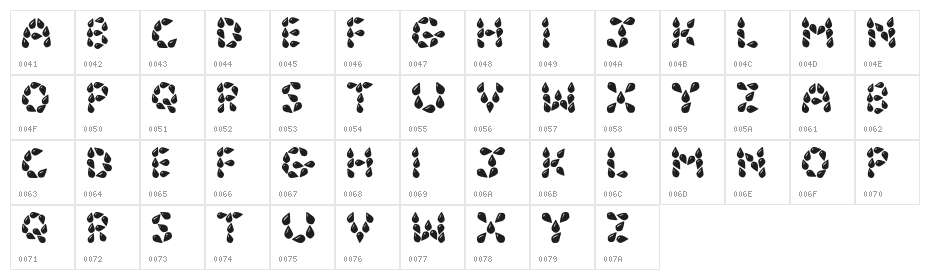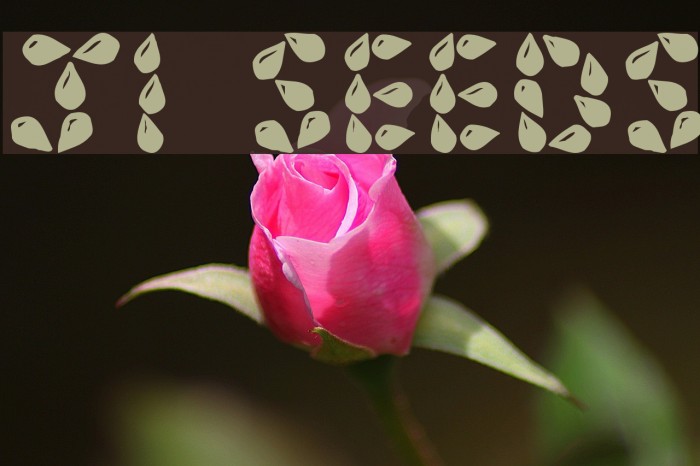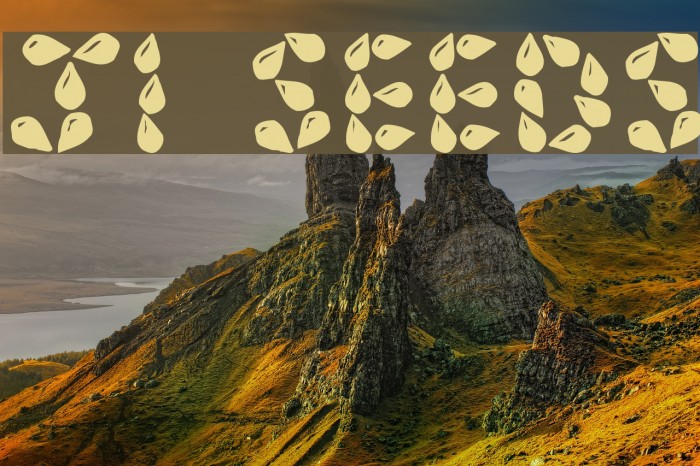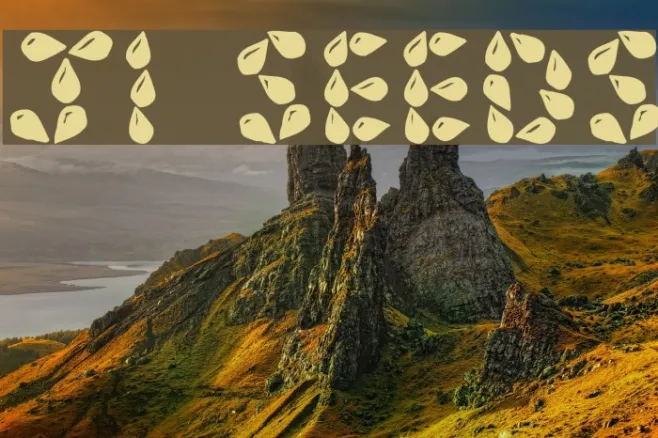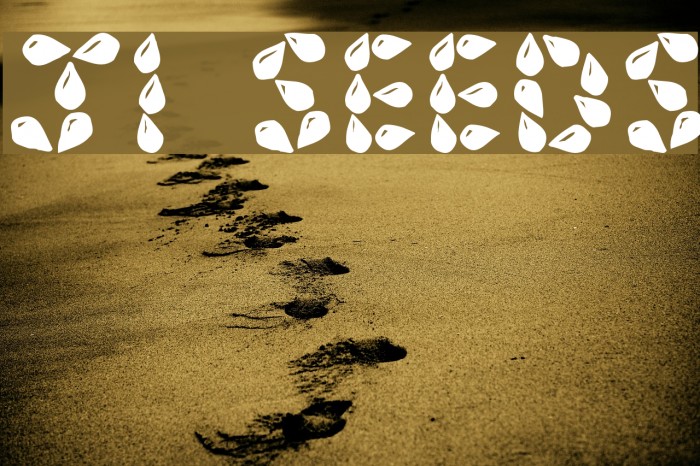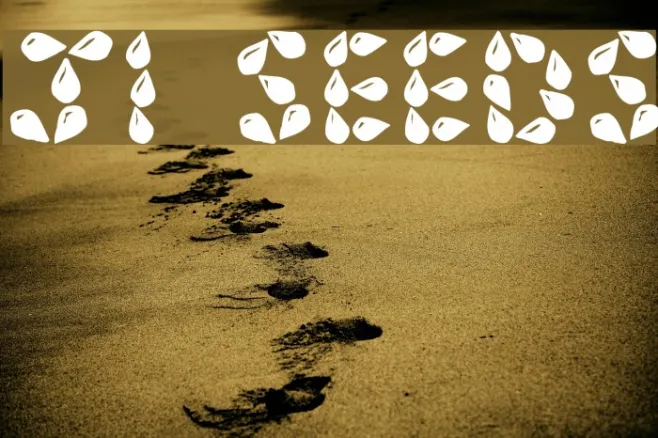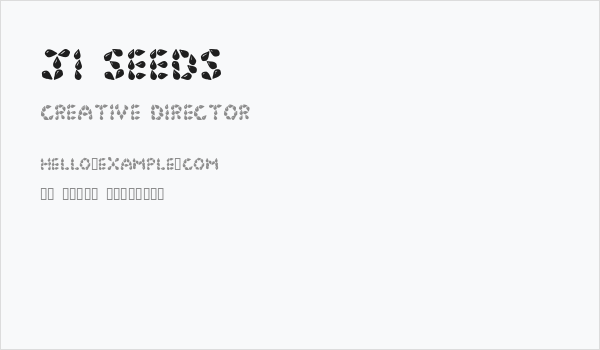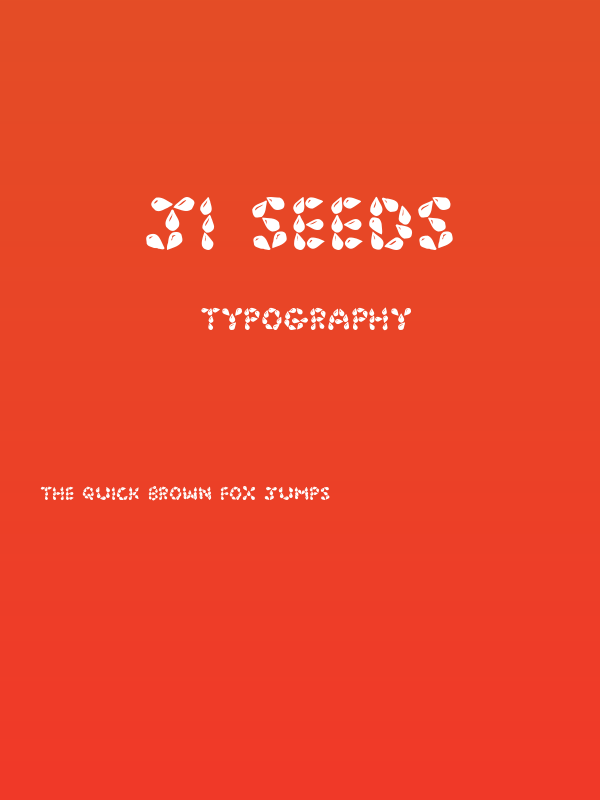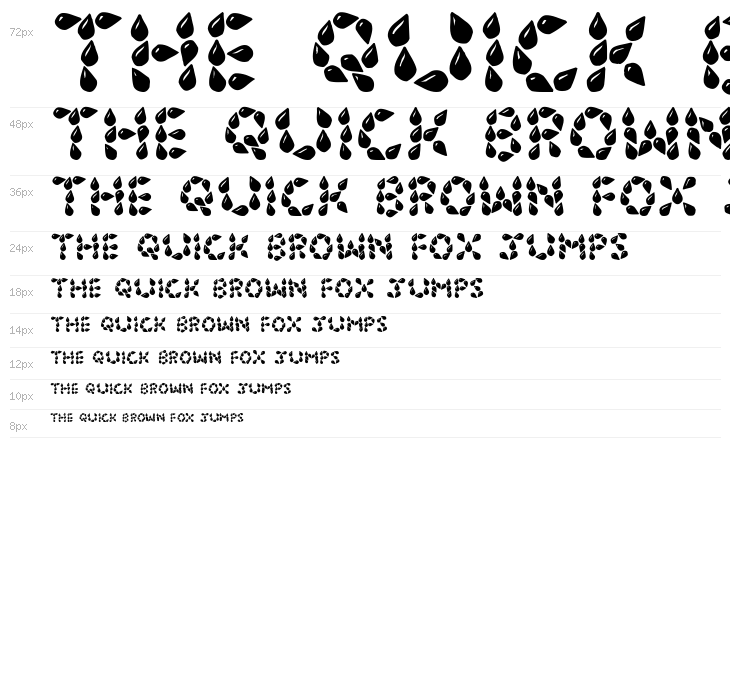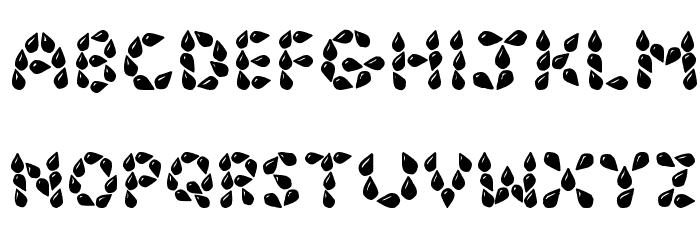
JI Seeds Font
JI Seeds Description
This font features a unique and playful design where each character is composed of seed-like shapes, giving it a natural and organic feel. The letters are bold and decorative, making them stand out with a distinct style. The uppercase and lowercase letters maintain a consistent theme, with each character formed by multiple seed motifs. The numbers and special characters follow the same design principle, ensuring uniformity across the font. This font is ideal for projects that require a touch of nature or a whimsical aesthetic, such as eco-friendly branding or children's book covers.
| Proposed Projects | Ideal for eco-friendly branding, children's book covers, nature-themed posters, and creative packaging designs. |